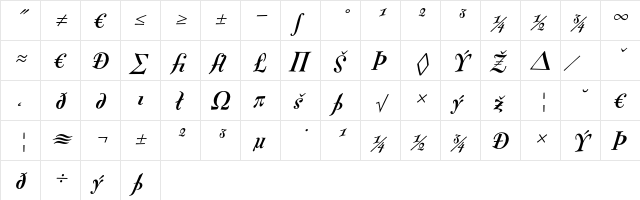
Fontesque-BoldItalicExpert Regular Font Preview
Design Context for Fontesque-BoldItalicExpert Typeface
Fontesque-BoldItalicExpert is a composed and adaptable typeface that performs quietly and consistently across a wide range of design contexts. The dynamic lean of this cut emphasises speed and emphasis in any layout. The heavy weight commands attention and anchors typographic hierarchies.
Pro Tip: Try Fontesque-BoldItalicExpert for annotation and caption copy alongside an upright companion — the contrast in angle creates a dynamic but ordered typographic system.